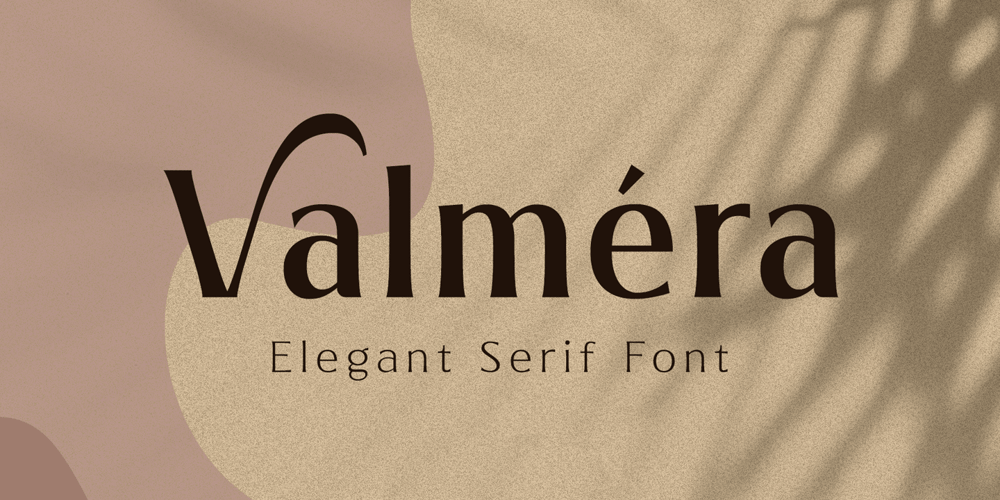
Valmera Font Family was designed by Ahmad Ramzi Fahruddin and published by Arterfak Project. Valmera contains 3 styles and family package options. Valmera is an elegant serif font, designed with modern-classy style. Valmera has a high contrast of the strokes that gives the minimalist looks, the serif crafted minimal to makes the letterform more classy. Also, the letter spacing is set wide that looks so clean. It is versatile and luxury!Available in 3 weights that you can use it for a headline, sub-headline, and body text. Valmera is a great choice for a minimalist design such as book cover, magazine, cards, packaging, quotes, editorial needs, advertising, traveling needs, logos & branding.Valmera is complete with alternates and swashes on the uppercase letter that possible you can make a typographic text.Font Features: Uppercase Lowercase Numbers Symbols Punctuation Stylistic alternates Swashes Accents (28 Languages) Thank you for visiting and watching, have a nice day!